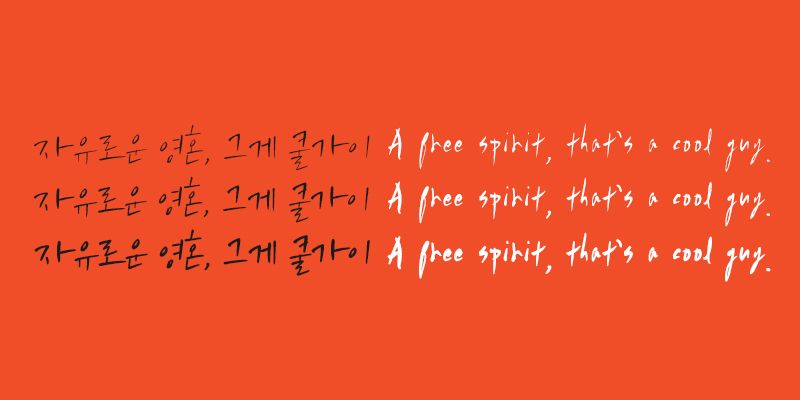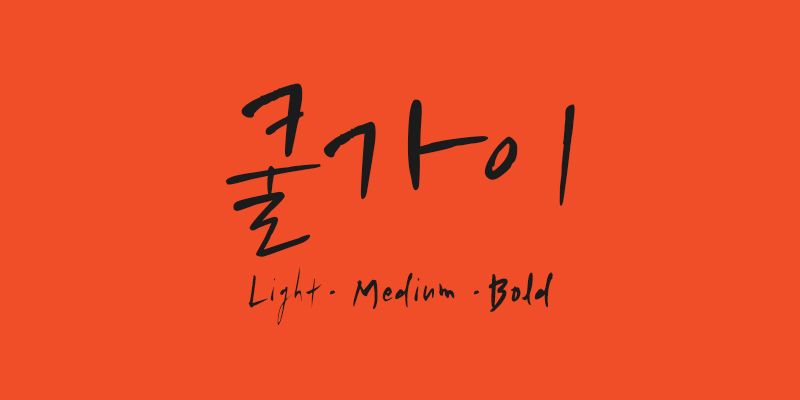
Coolguy is a playful Korean display typeface with a bold, casual rhythm and a confident handwritten feel. Its lively strokes and friendly personality make it ideal for posters, thumbnails, packaging, social media graphics, and branding that needs a fun and energetic voice.